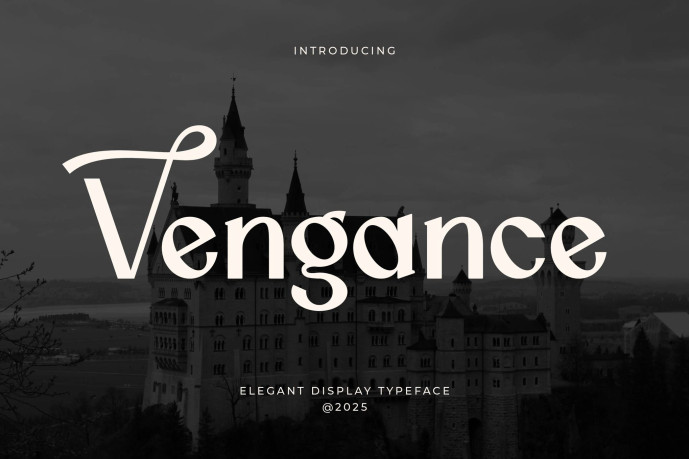
Vengance Font
Designer: Artiveko
Vengance Font is an elegant and stylish font designed to add a sophisticated touch to any project. With its refined letterforms and luxurious appearance, this typeface is perfect for posters, social media content, branding, personal projects, invitations, and premium designs. Its timeless aesthetic helps create a professional, eye-catching, and memorable visual identity.